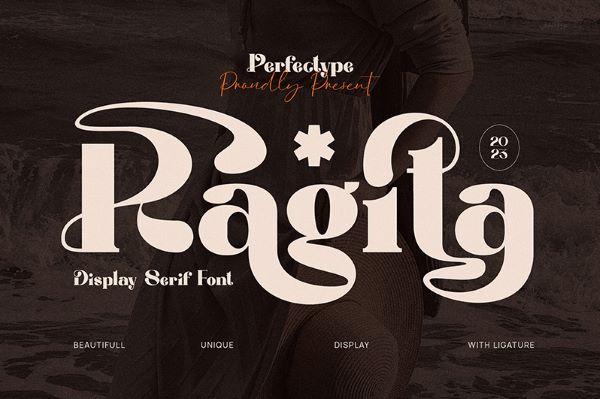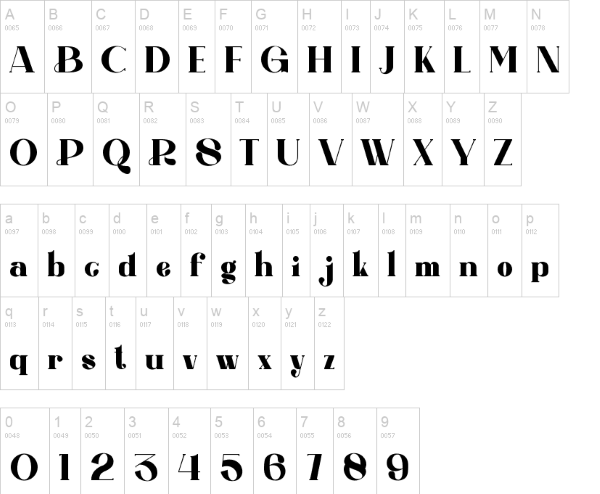
Ragita Font
Ragita Font is a unique and elegant serif typeface that blends classy detail with a modern style. Designed with strong readability, it works beautifully for branding, logos, weddings, packaging, labels, invitations, and social media designs. Ragita adds a refined, professional touch, making it ideal for projects that require sophistication, clarity, and timeless visual appeal.
➤ Font Name: Ragita
➤ Designer: Setyo Wati
➤ Style: Serif